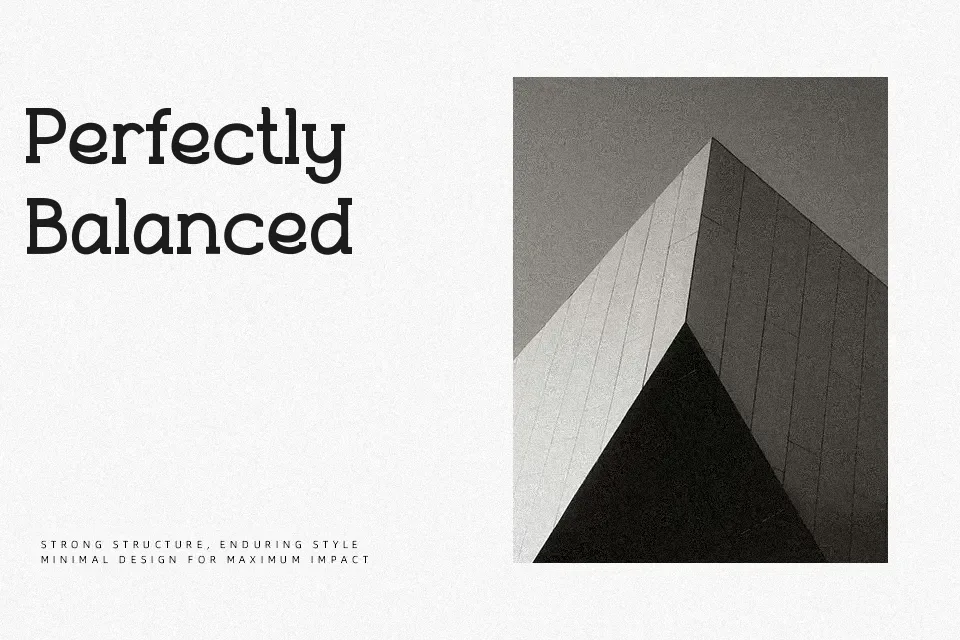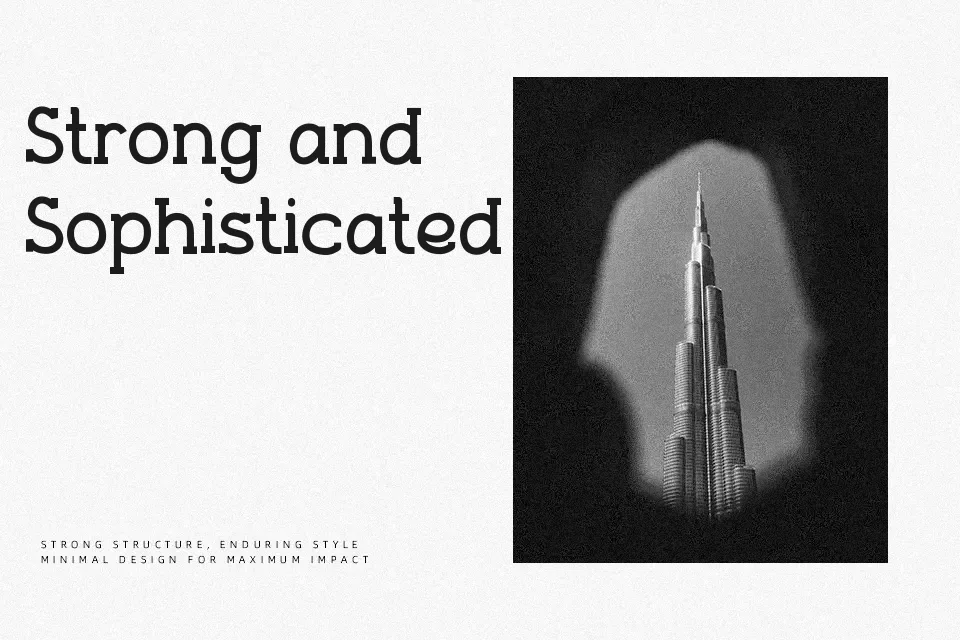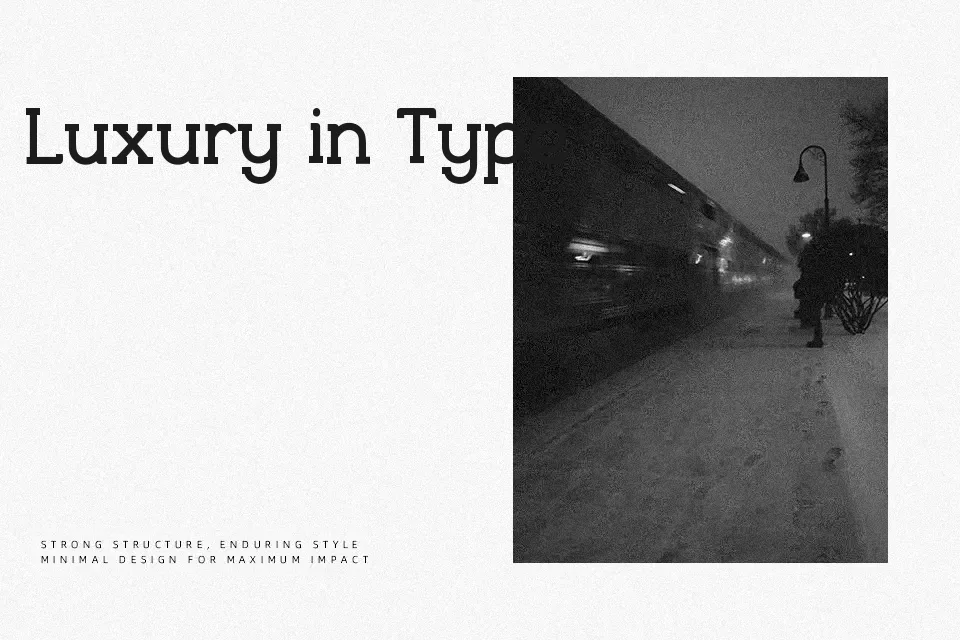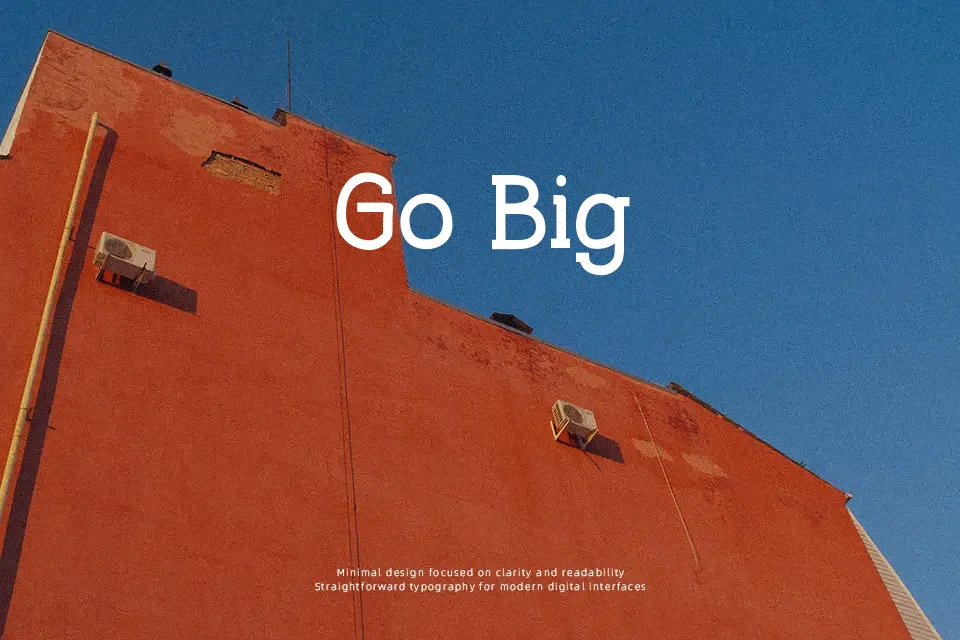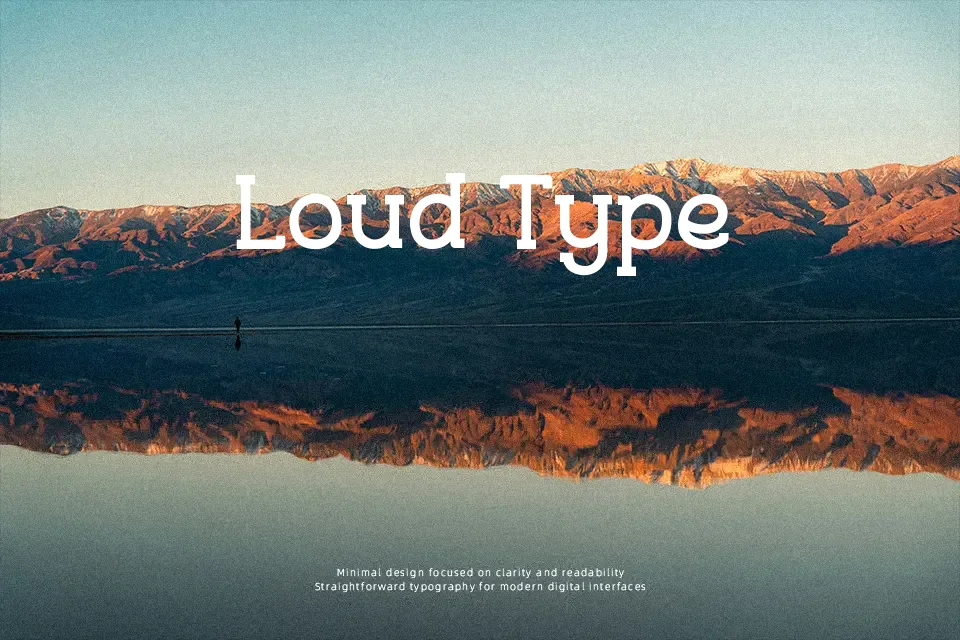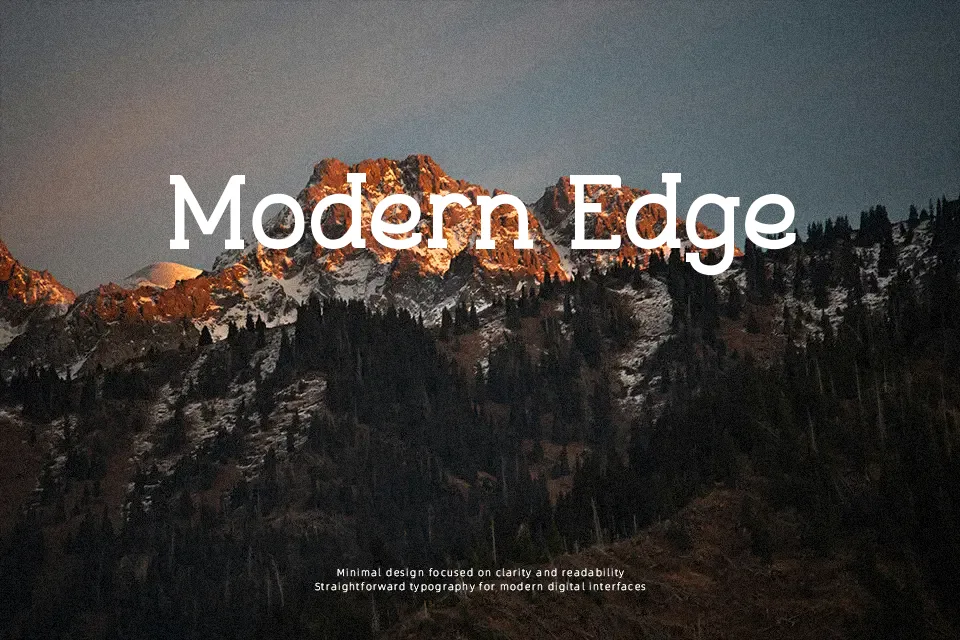
Tazman Island Font
Tazman Island Font delivers an assertive visual presence built on substantial stroke weight, softened block terminals, and compact horizontal spacing. Its letterforms feature generous x-height proportions and minimal stroke contrast, keeping silhouette shapes solid and prominent across medium to large scales. Uppercase characters show consistent geometric bulk, while curved joins provide a subtle bounce in running display copy. Legibility remains reliable for brief titles and punchy wordmarks, though the dense shapes and close rhythm quickly lose separation within lengthy paragraphs or small interface text. The typeface proves most practical when headline impact matters far more than continuous reading comfort.